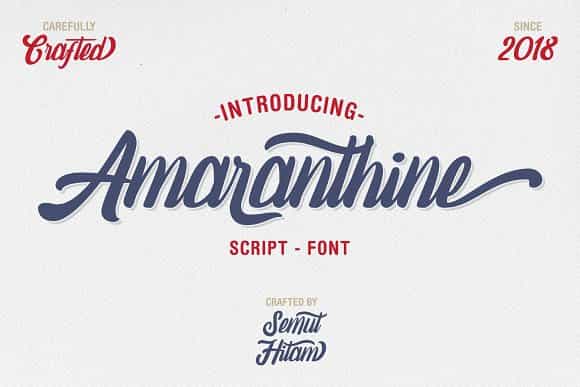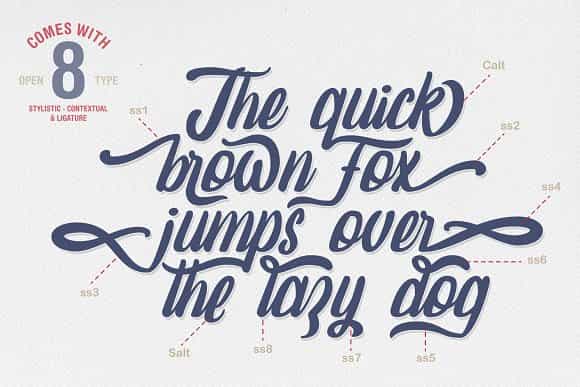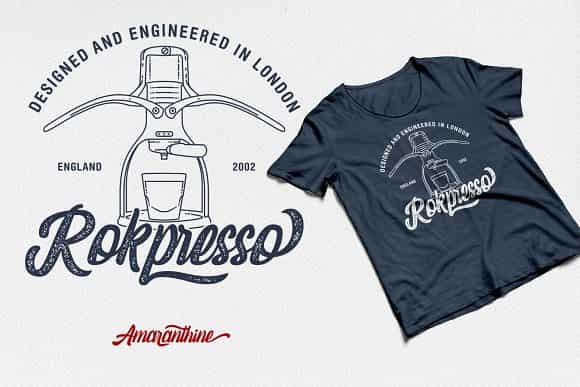
Introducing Amaranthine Font. This platform is based on a shared core concept developed by the team of junART. Amaranthine Script Font Font (as a typeface) is elegant and old-fashioned. OpenType features, as well as uppercase and lowercase character sets, punctuation marks, numbers, multi-lingual symbols, ligatures, styled alternates and other additional glyphs are included.